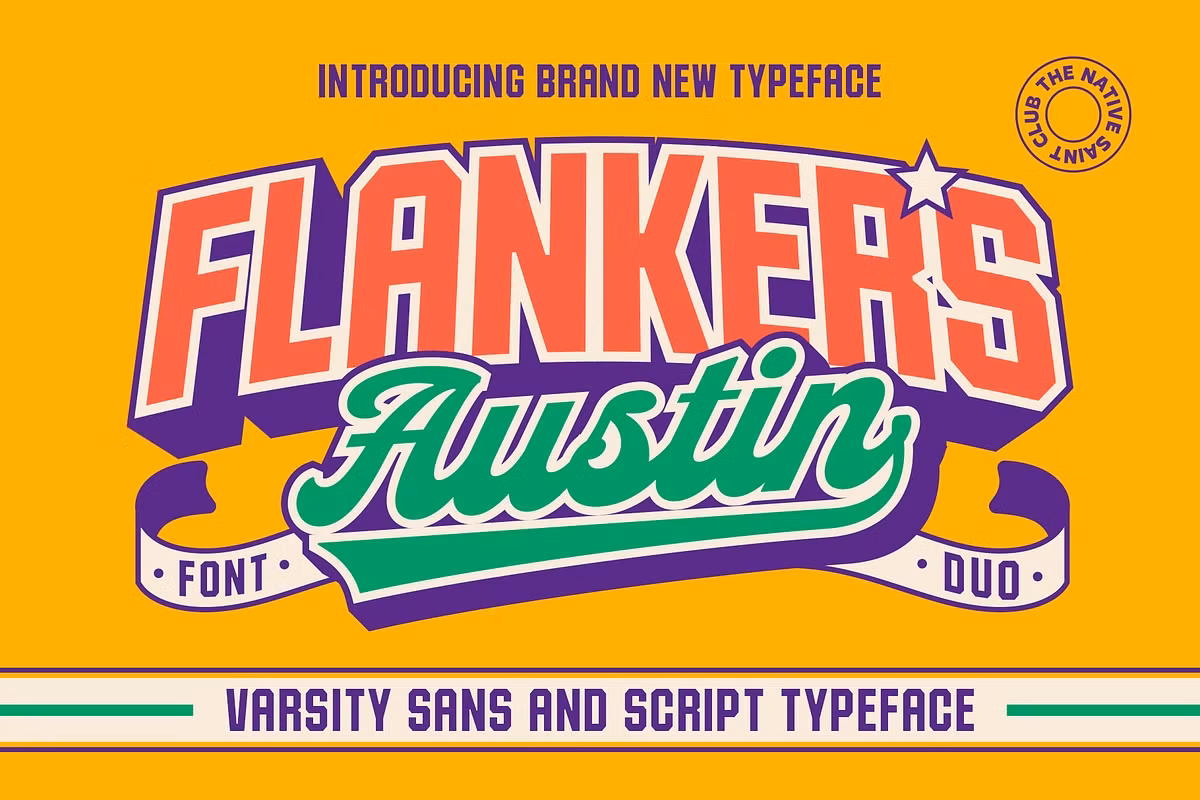
Flankers Austin - Varsity Font Duo Free Download is a dynamic and stylish font pairing that channels the energy of classic varsity and athletic design. With its bold, strong letterforms and sleek styling, this font duo is perfect for creating sports team logos, varsity jackets, high-energy branding, and promotional materials. The two fonts in the bundle—each with its own unique flair—work together to create an impactful and cohesive design. Whether you’re designing for a sports event, school spirit gear, or an athletic brand, Flankers Austin - Varsity Font Duo Free Download lets you explore its modern, varsity-inspired style in personal projects before purchasing a commercial license. Add a bold, energetic vibe to your designs with this versatile and stylish font duo.